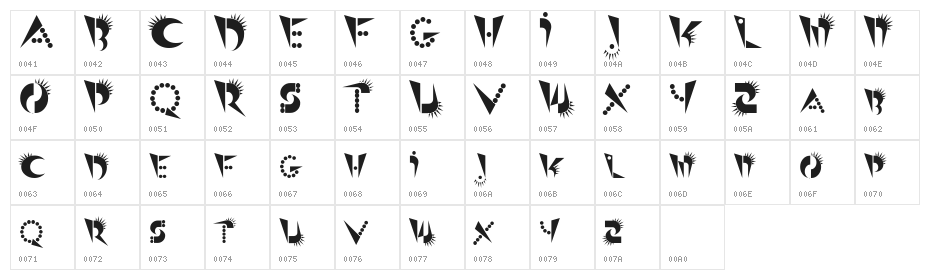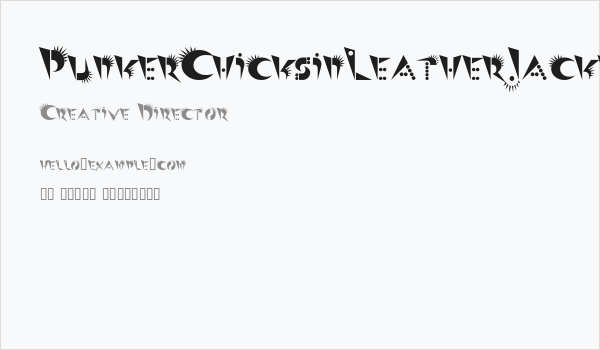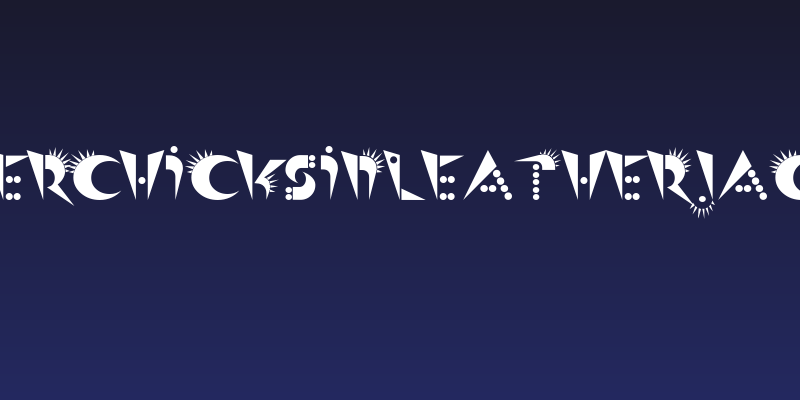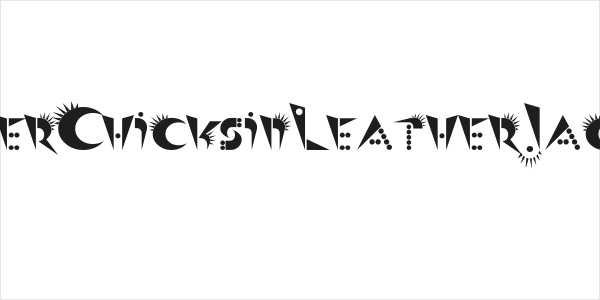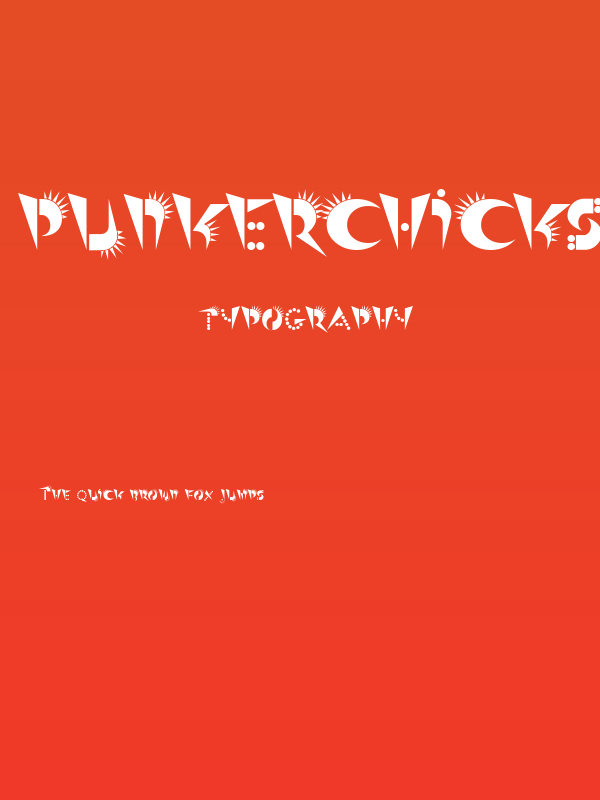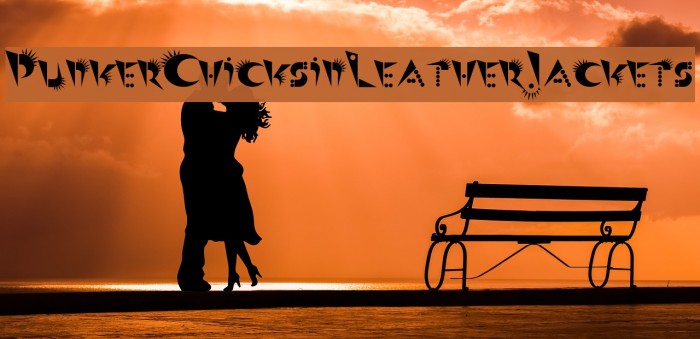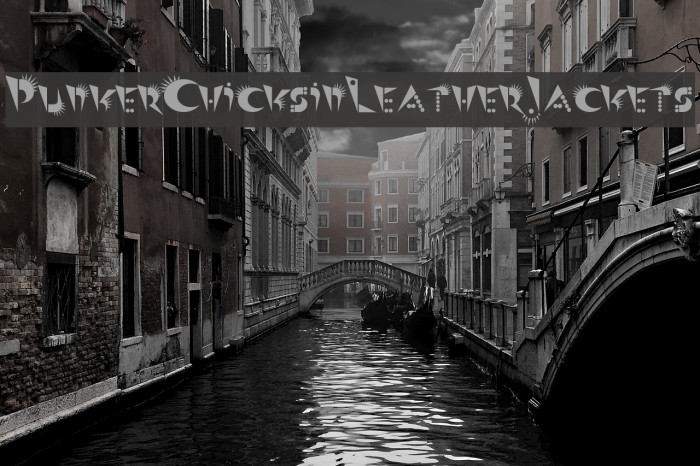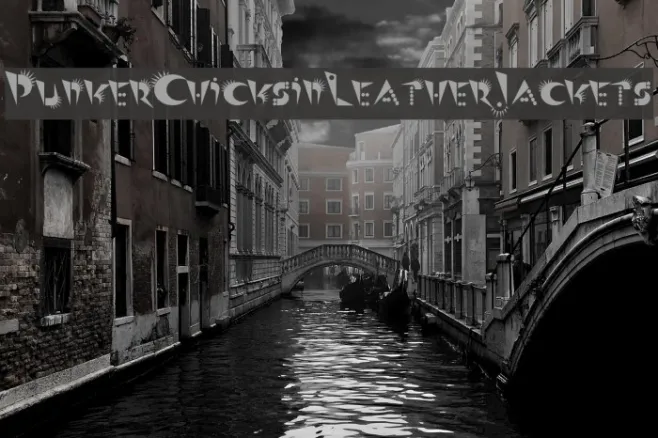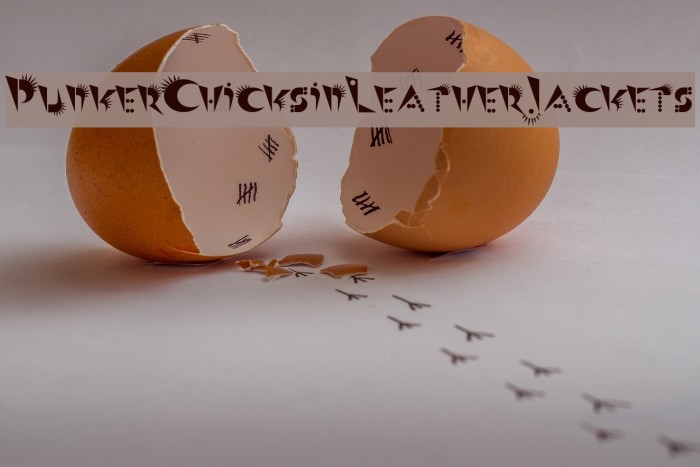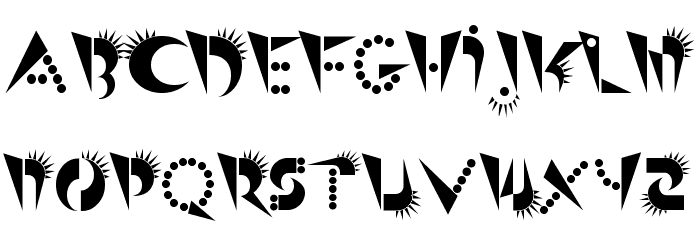
PunkerChicksinLeatherJackets Font
PunkerChicksinLeatherJackets Description
This font exudes a bold and rebellious attitude, characterized by its sharp, angular shapes and edgy embellishments. The uppercase letters are adorned with spikes and dots, giving them a punk-inspired aesthetic. The lowercase letters maintain a similar style, with unique geometric forms that create a cohesive look. The numbers are represented by rectangular blocks, adding to the font's unconventional and striking appearance. Special characters are also designed with the same boldness, ensuring consistency throughout. This font is perfect for projects that require a daring and standout visual impact.
| Overall Style | Modern, Punk |
| Proposed Projects | Ideal for music album covers, fashion branding, event posters, and any project needing a rebellious, standout look. |